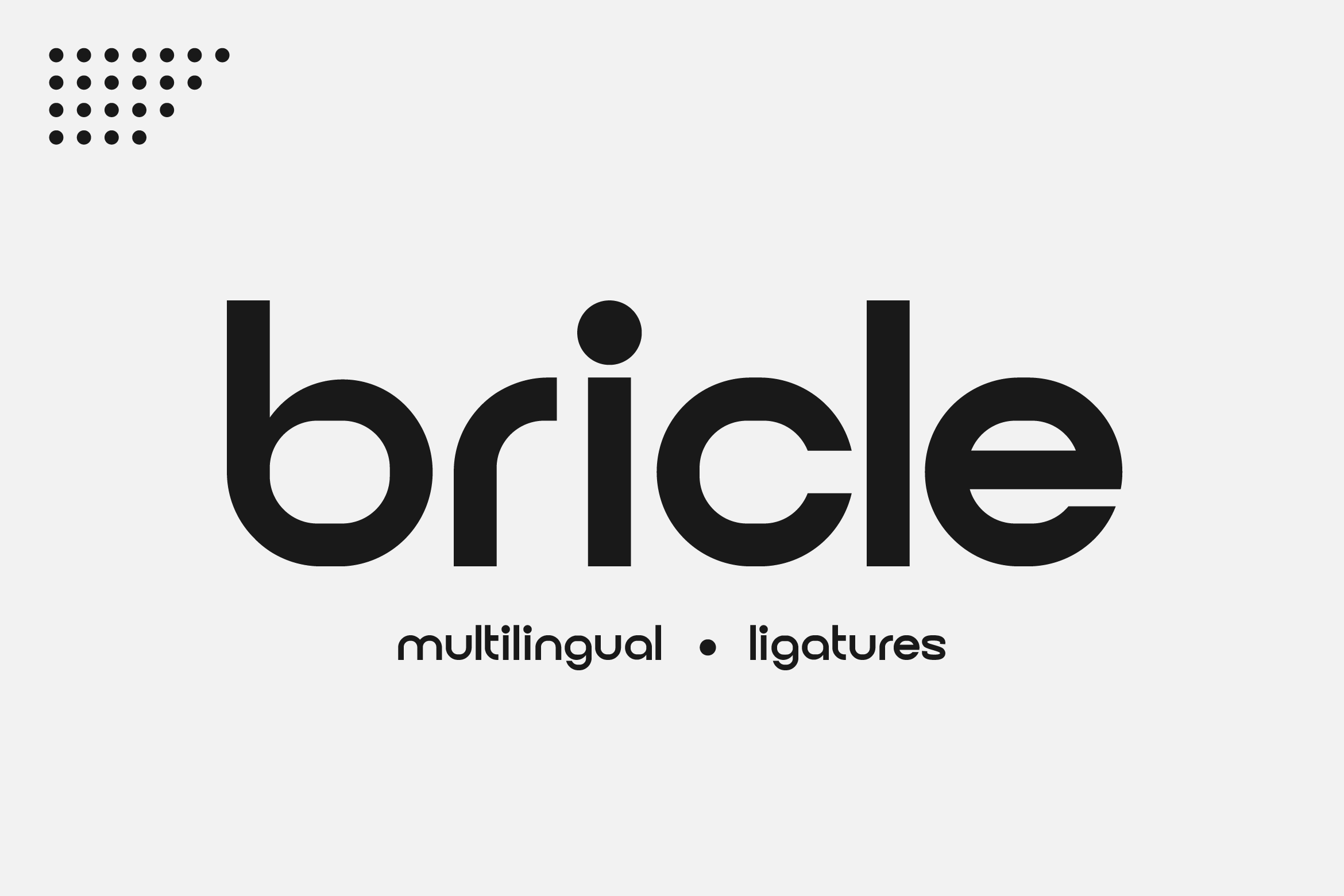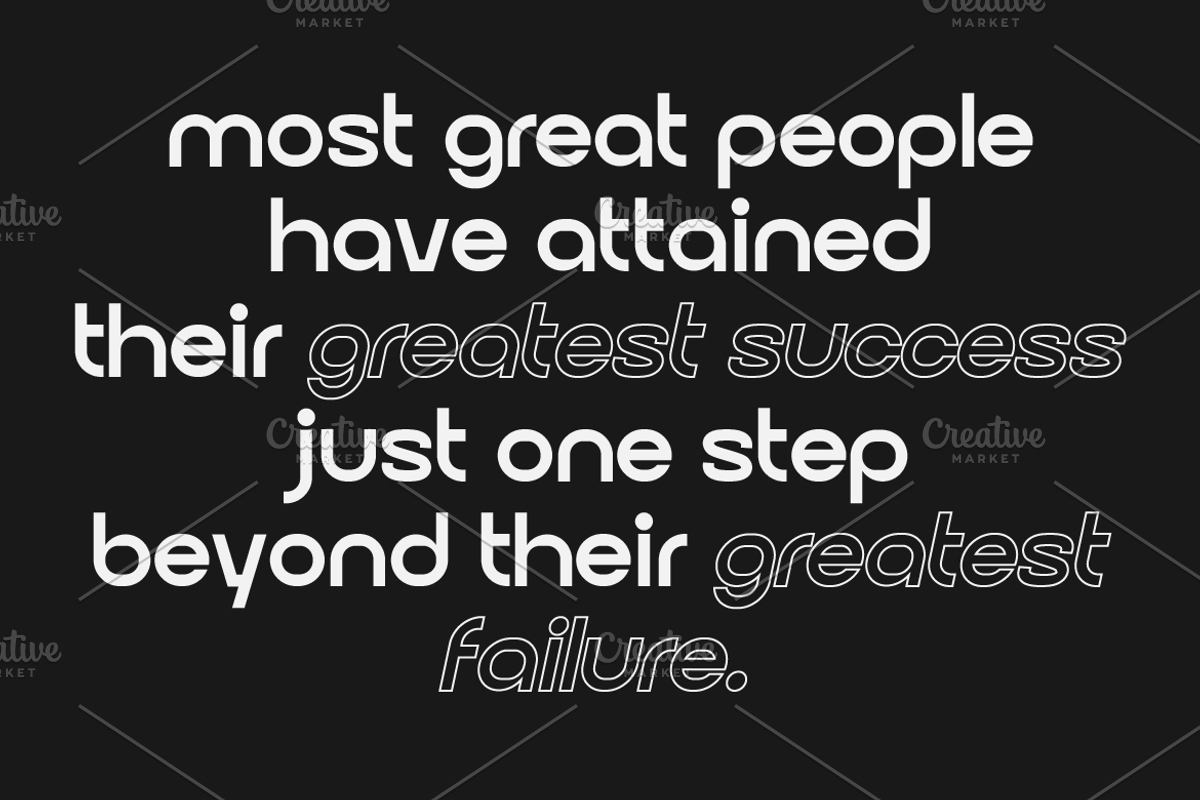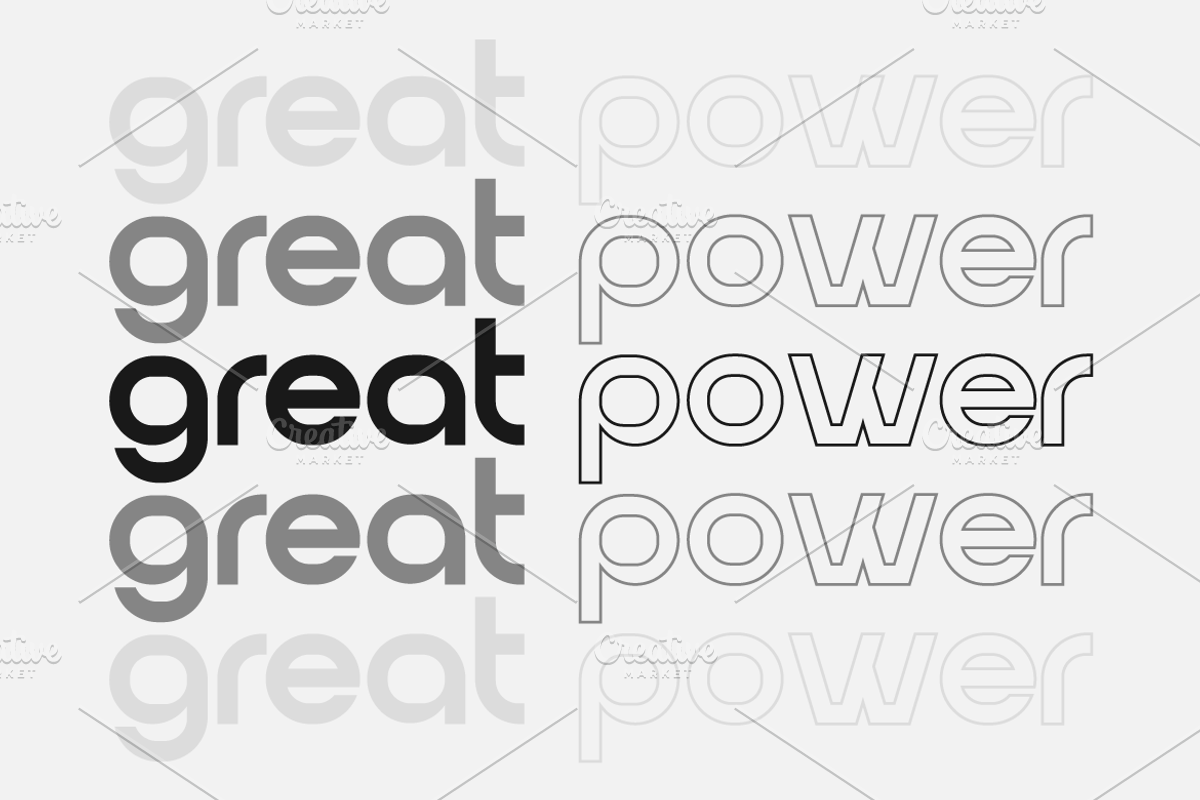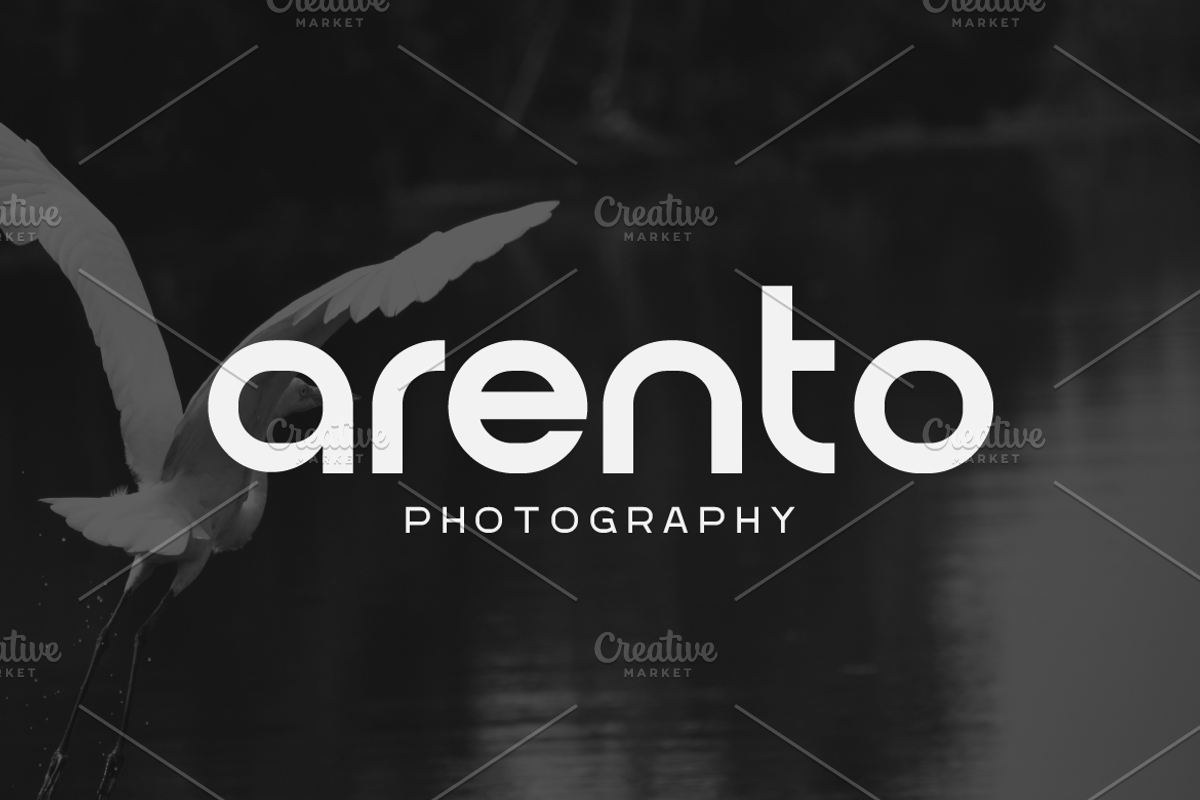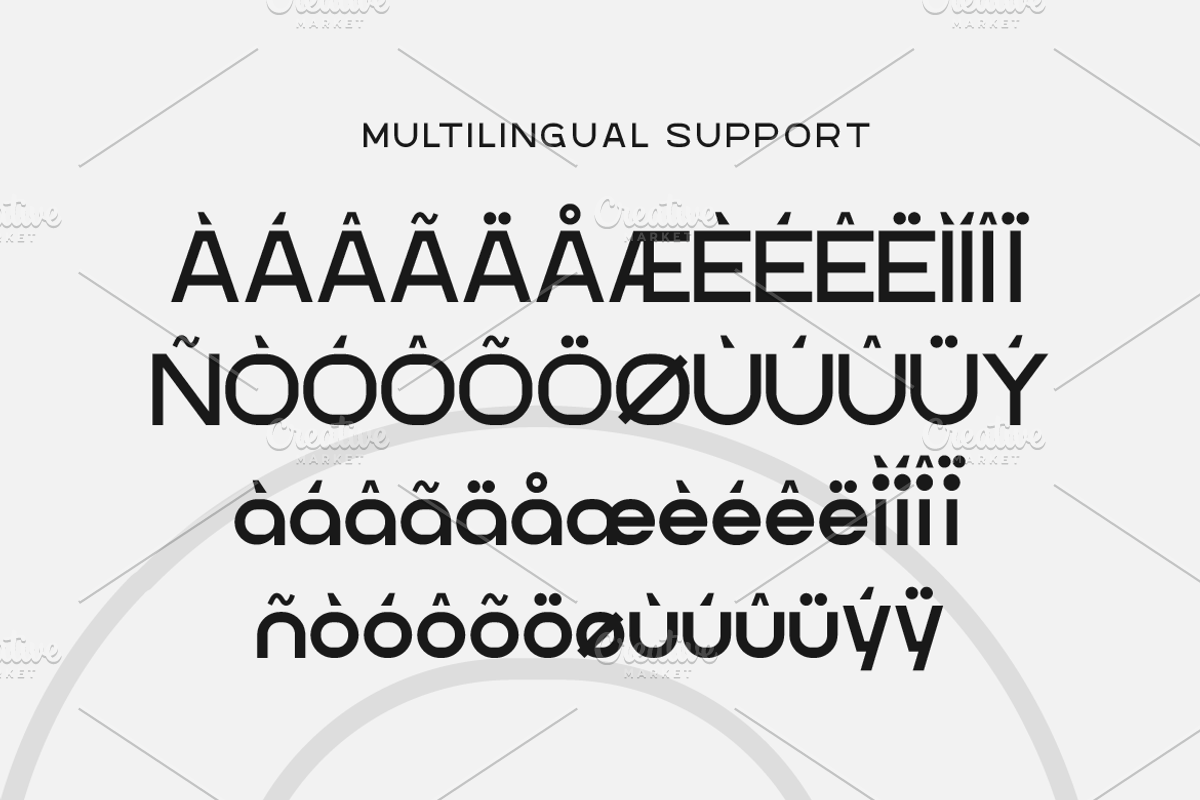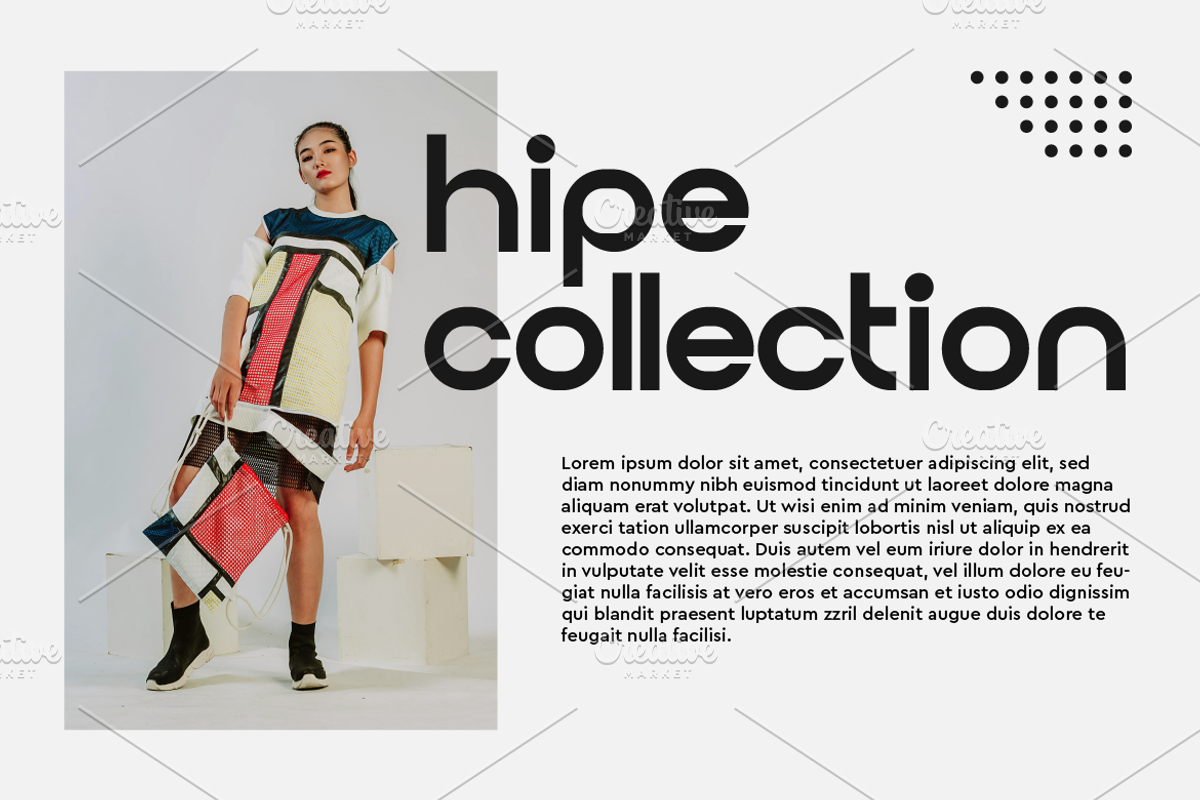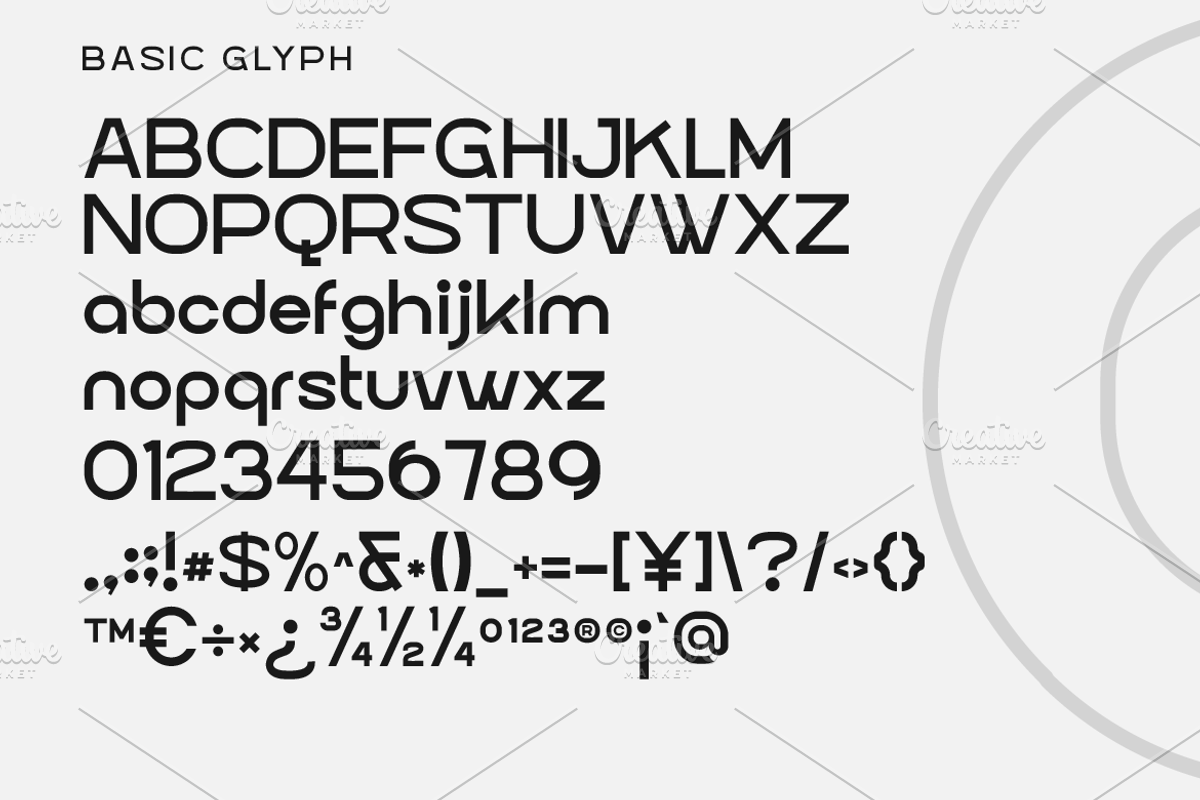
Bricle Logo Font
Bricle is a distinctive sans-serif logo font crafted by Iwan Alwan, featuring unique forms with variations in uppercase and lowercase letters. It supports multiple languages and includes stylish ligatures, making it versatile for various design needs. Perfect for magazines, business cards, posters, and more, Bricle brings a modern, creative touch to your projects.